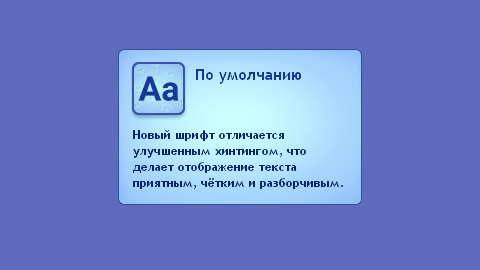
Russian Font Replacement
EnglishThe mod replaces the default Cyrillic font (Trebuchet EA) with a modern one. Choose the one you like:
- Liberation Sans, a regular font that fits more words per line.
- Noto Sans, a slightly larger font that provides a balance between aesthetics and practicality.
- Verdana Pro, a large font that remains legible even at small sizes.
РусскийМод заменяет кириллический шрифт по умолчанию (Trebuchet EA) на современный. Выберите тот, что придётся вам по душе:
- Liberation Sans — обычный шрифт, с ним в строке поместится больше слов.
- Noto Sans — шрифт с немного увеличенными пропорциями: баланс между эстетикой и практичностью.
- Verdana Pro — крупный шрифт, который останется различимым даже в мелком кегле.